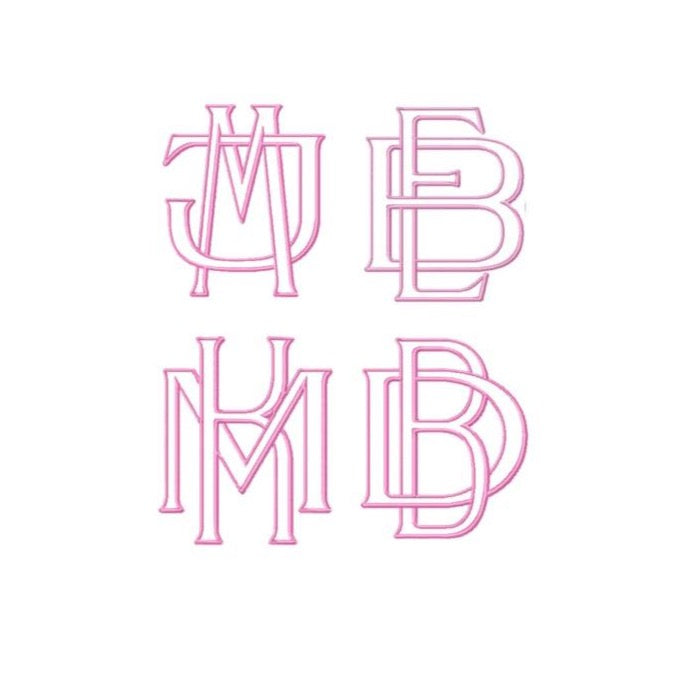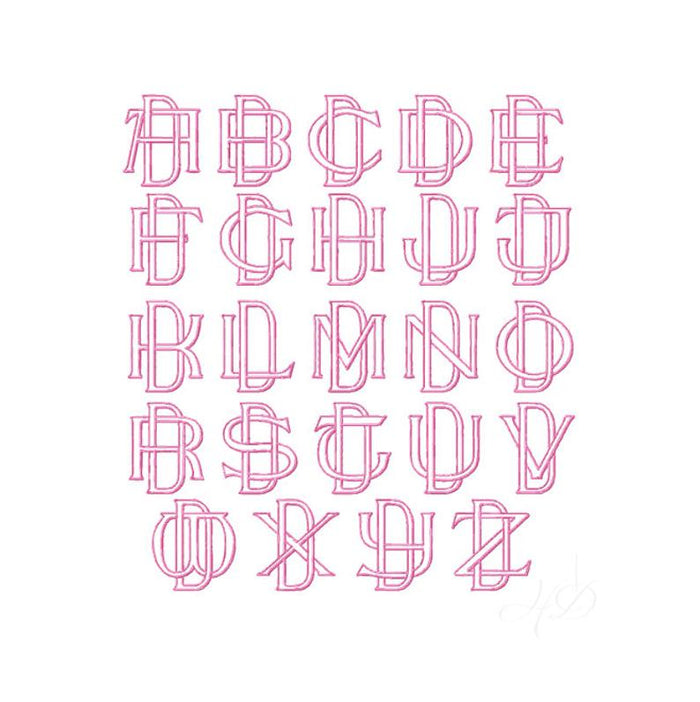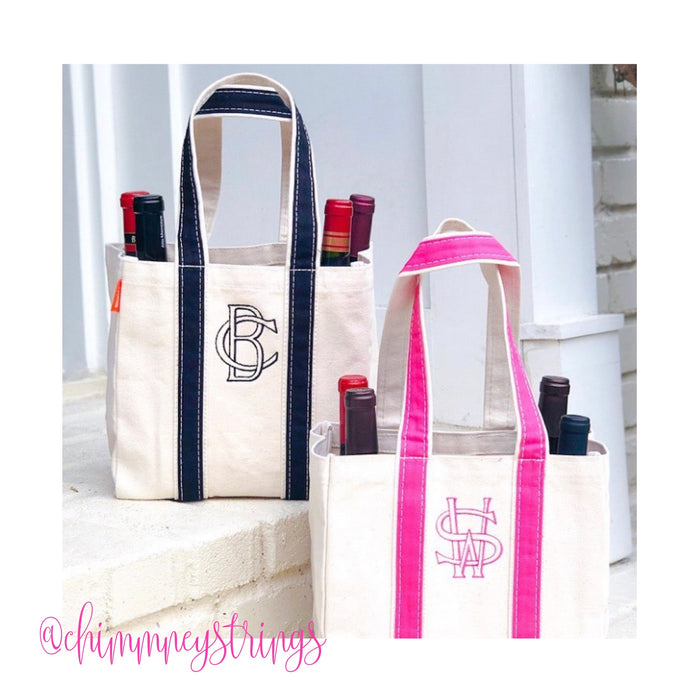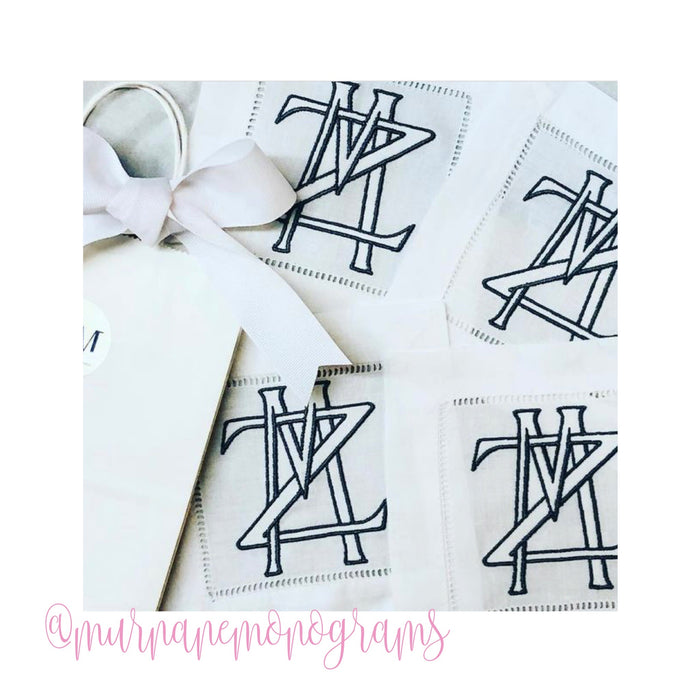
1.5" Two Type Outline Satin Embroidery Font Package for DIY monograms
Unlock your creativity with our 1.5" Two Type Outline Satin Embroidery Font Package, designed specifically for embroidery machine enthusiasts. This package features all 26 letters of the alphabet, each with 26 unique variations, allowing for truly personalized monograms.
With a total of 676 letter designs included, your custom projects will stand out! Each tall letter measures 1.5”, crafted in a high-quality satin stitch that guarantees elegance and clarity in every stitch.